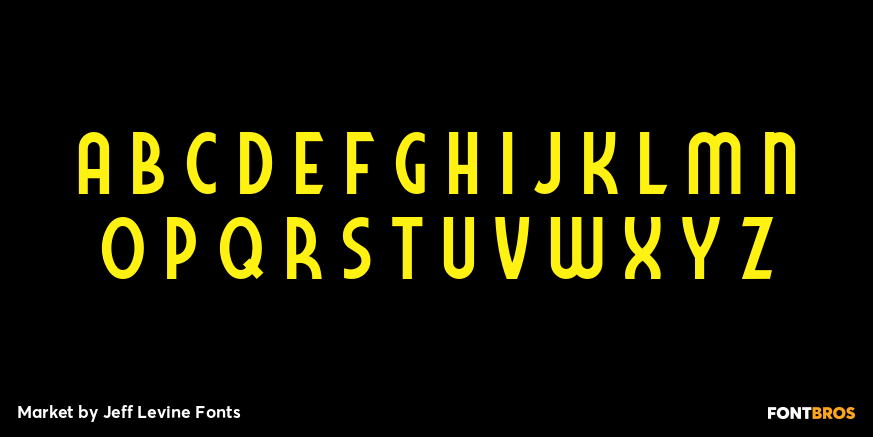
Market
Market JNL is based on lettering found on a circa 1940s office supply product. There is a distinct Art Deco feel to this font, and it lends itself perfectly to all retro projects.